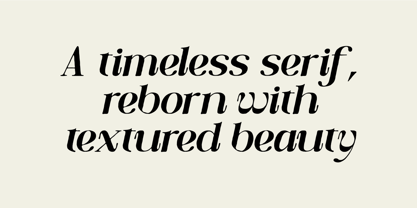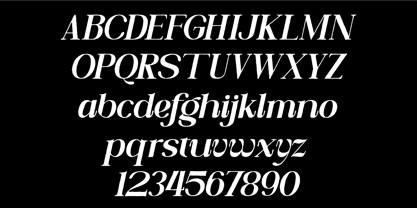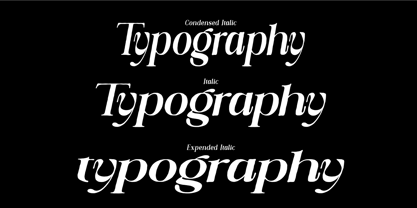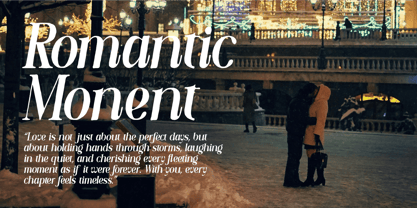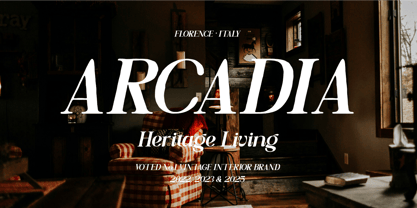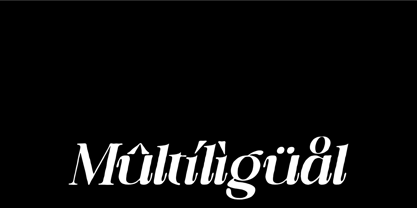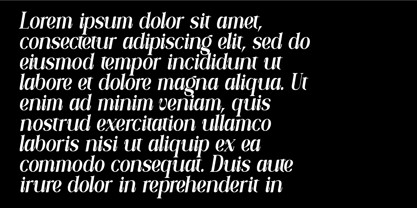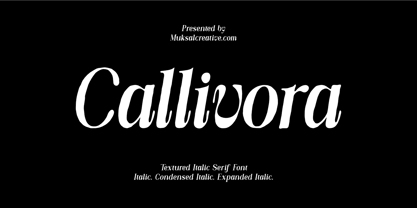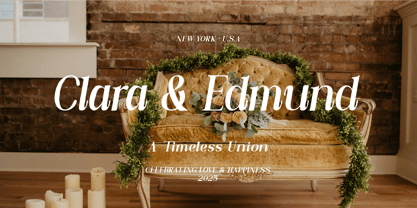
Callivora
by Muksal Creatives
The Callivora Font Family was designed by Muksalmina and published by Muksal Creatives. Callivora contains 3 styles and family package options. More about this family
Callivora – Textured Italic Serif Font
Meet Callivora, a textured italic serif font designed to bring elegance and warmth into every letter. With smooth curves and hand-drawn textured details, Callivora evokes a sense of romantic nostalgia while staying modern and versatile—making it the perfect choice for branding projects that seek artistry and timeless beauty.